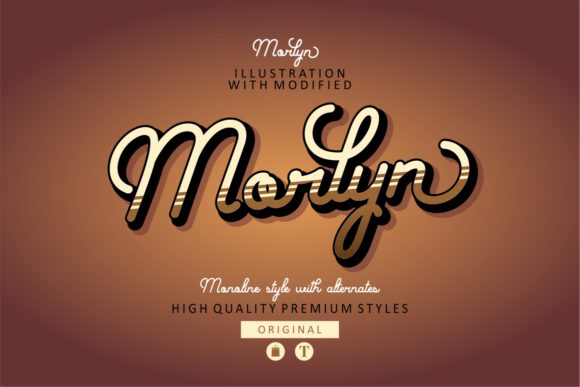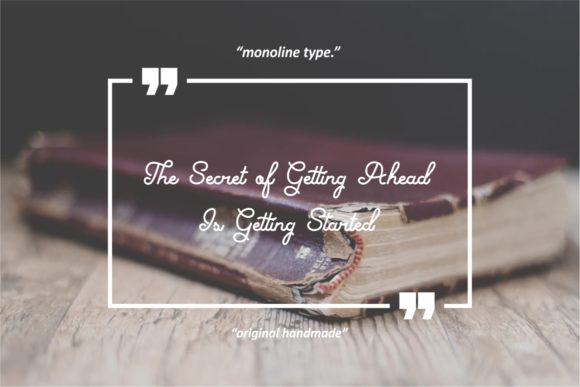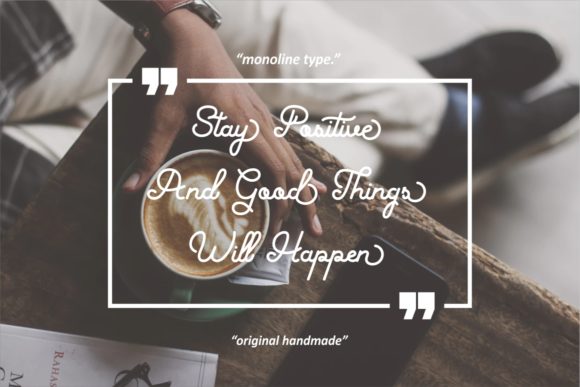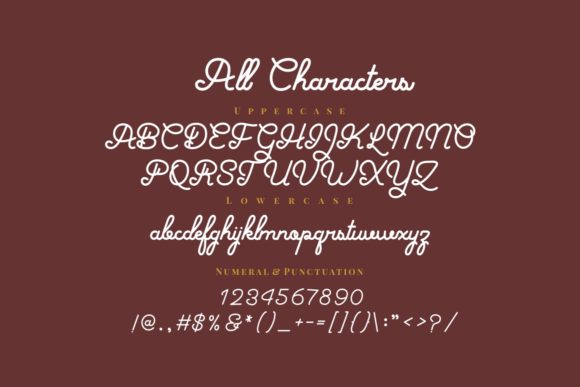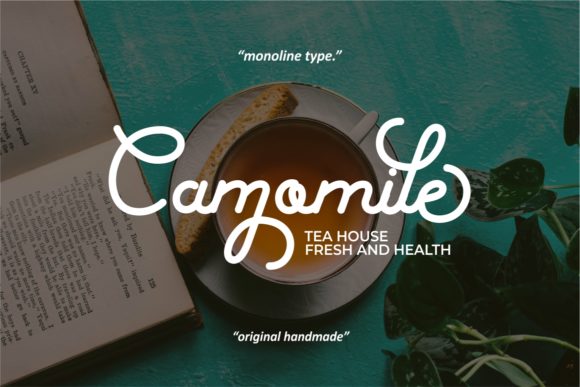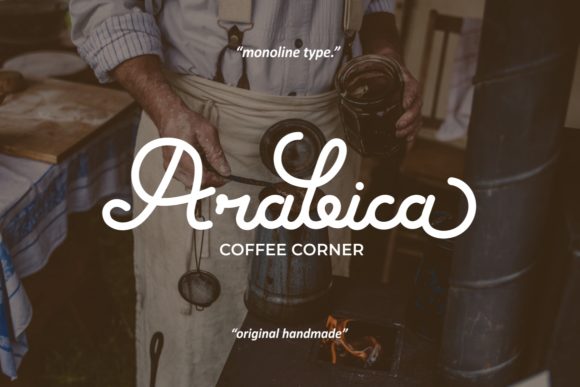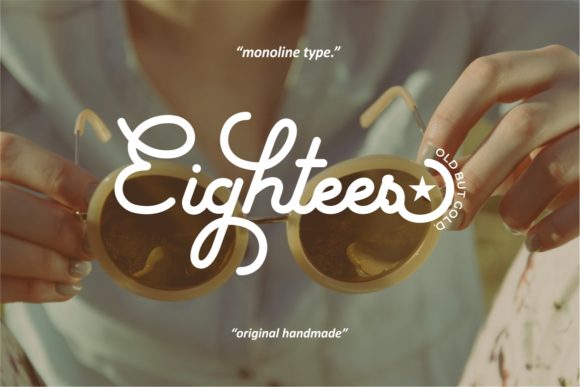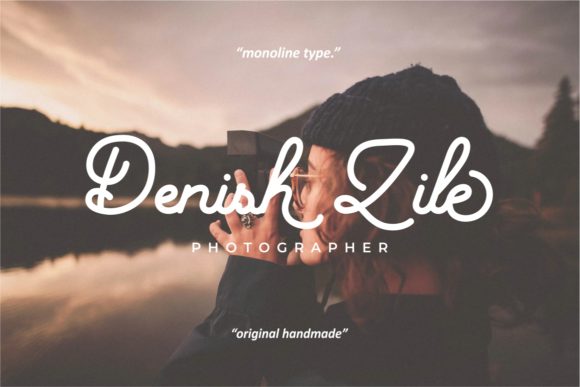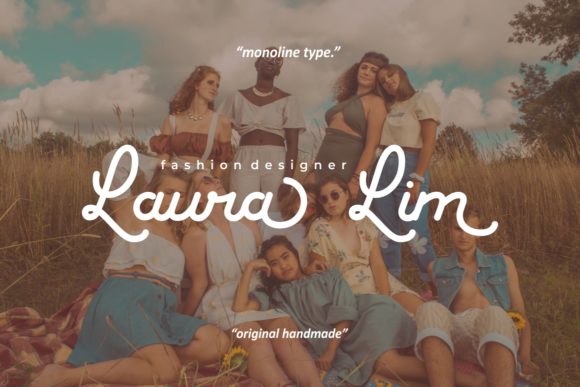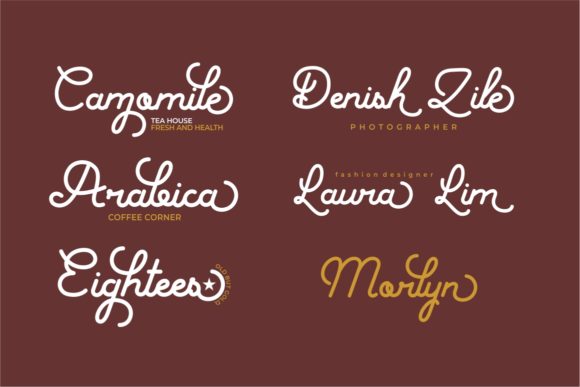
Morlyn Font
About Morlyn Font
Morlyn feels playfully nostalgic and delivers an incredible vintage aesthetic. Use this handwritten font to add that special retro touch to any design idea you can think of! This font is PUA encoded which means you can access all of the glyphs and swashes with ease! It features a varying baseline, smooth lines, gorgeous glyphs and stunning alternates.